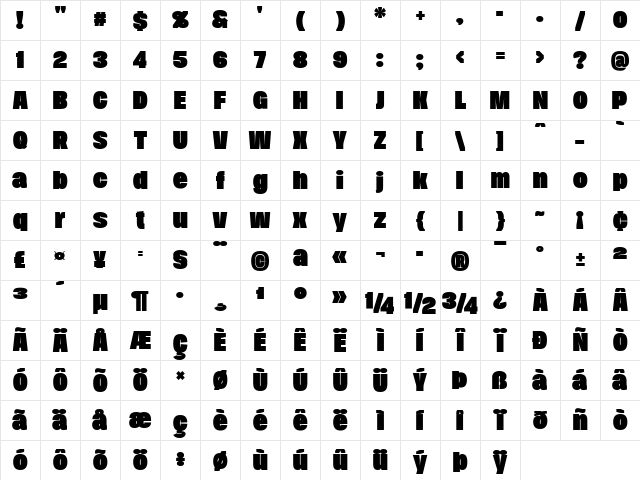
Duera PERSONAL USE Normal Black Free Font
Duera PERSONAL USE Normal Black
Foundry: Mans Greback
Designer: Mans Greback
Year: 2016
Duera PERSONAL USE Normal Family
Design Context for Duera PERSONAL USE Normal
Duera PERSONAL USE Normal is a composed and adaptable typeface that performs quietly and consistently across a wide range of design contexts.